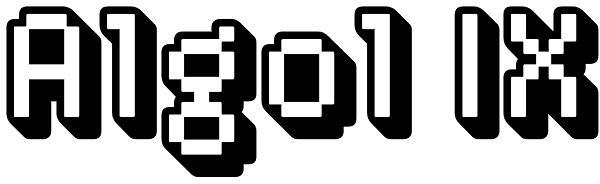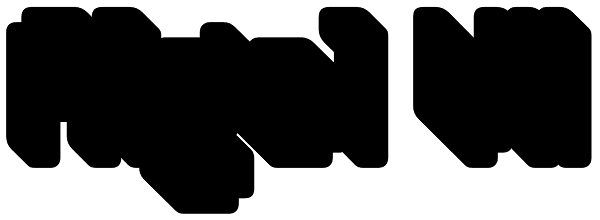
Algol
Scientists discovered what they believe is a new display font. First sighted in constellation Perseus, it has been named Algol. The family consists of Algol Regular, Algol VII and Algol IX. Algol Regular and Algol VII can be layered for a striking...
Algol IX
Algol Regular
Algol VII